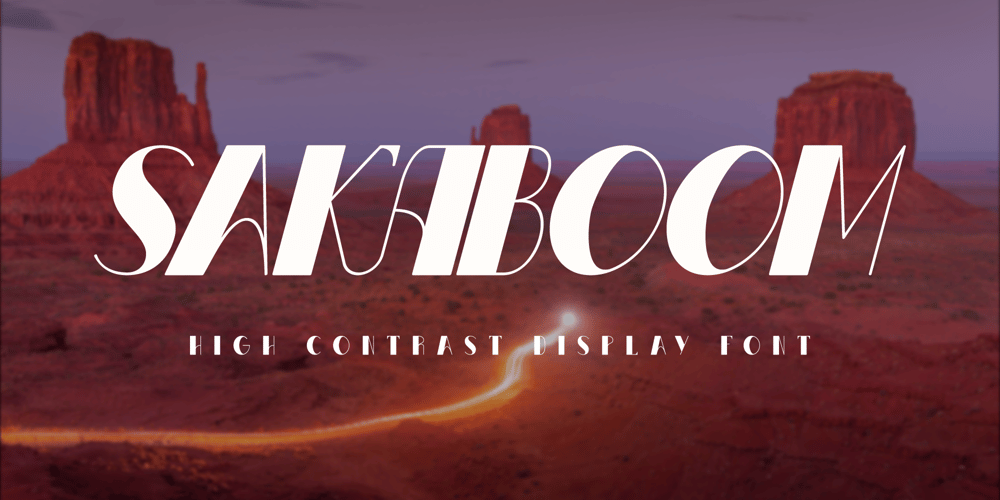
Sakaboom
Sakaboom font
Sakaboom Font Family was designed by Irfan Hidayat and published by Creative17studio. Sakaboom contains 2 styles and family package options. Sakaboom is a high contrast font with strong and clean shapes.designed to support those of you who have an interest in the design of posters, magazines, invitations and various other designs.also supported for multilingual languages.If you have a problem with our product, just take a DMfree updates